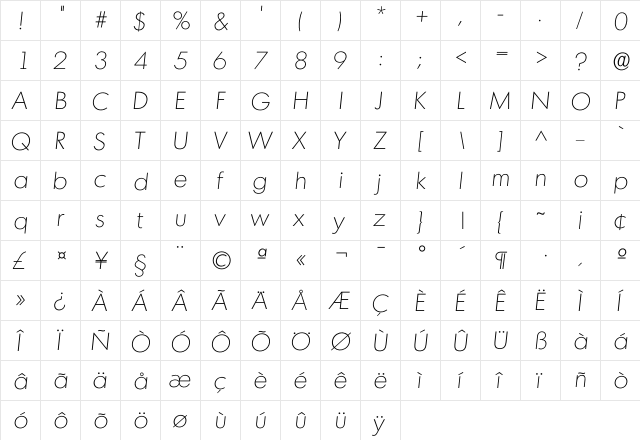
Imontreal Xlight
Design Context for Imontreal Typeface
Imontreal takes a measured approach to typography — its balanced proportions and neutral character make it a reliable workhorse for both digital and print work. Its slender proportions lend an understated elegance to any composition.